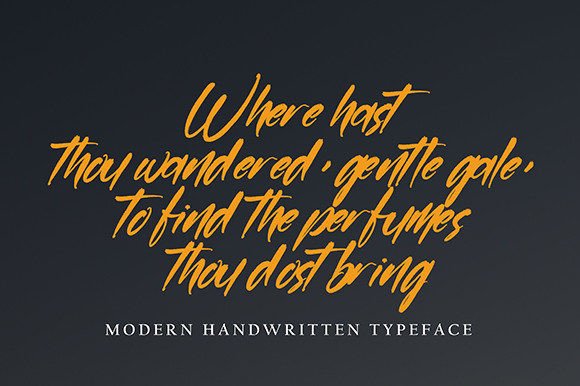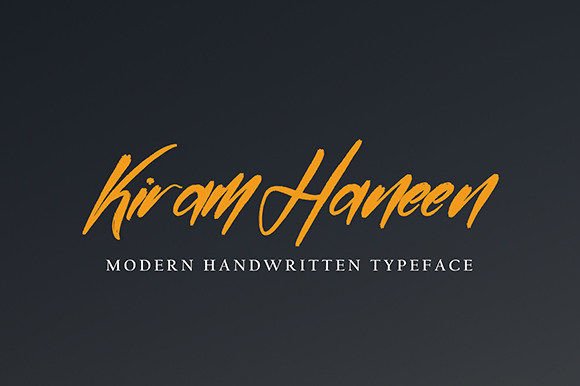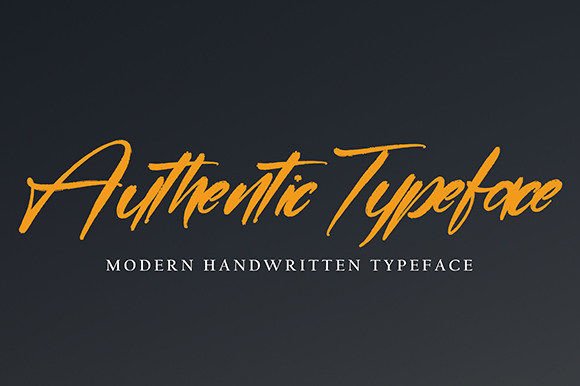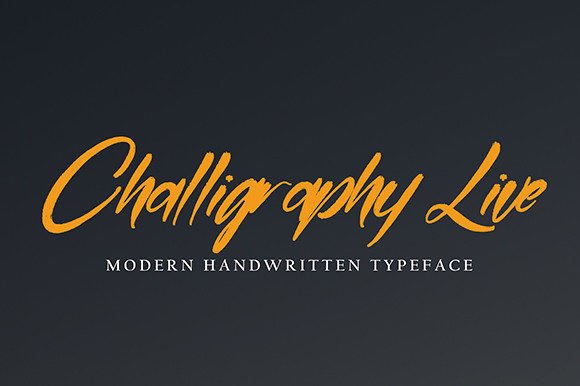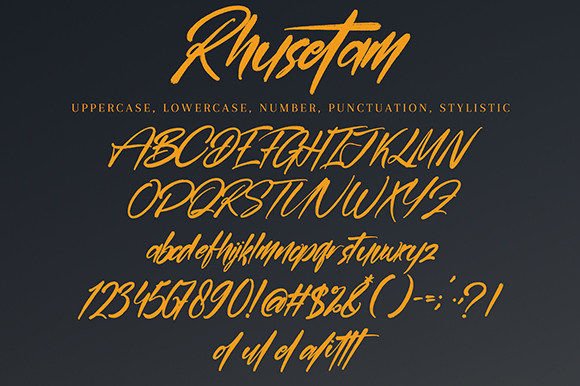
Introduction to Rhusetam Font
Rhusetam is a stylish script font, perfect for a variety of projects such as quotes, logos, watermarks, invitations, social media, cards and much more.
Rhusetam is a stylish script font, perfect for a variety of projects such as quotes, logos, watermarks, invitations, social media, cards and much more!
Key Features of Rhusetam Font
Why Choose Rhusetam Font?
Rhusetam Font offers exceptional quality and versatility, making it a valuable addition to your design toolkit. Whether you’re creating for personal projects or commercial use, Rhusetam Font delivers professional results.